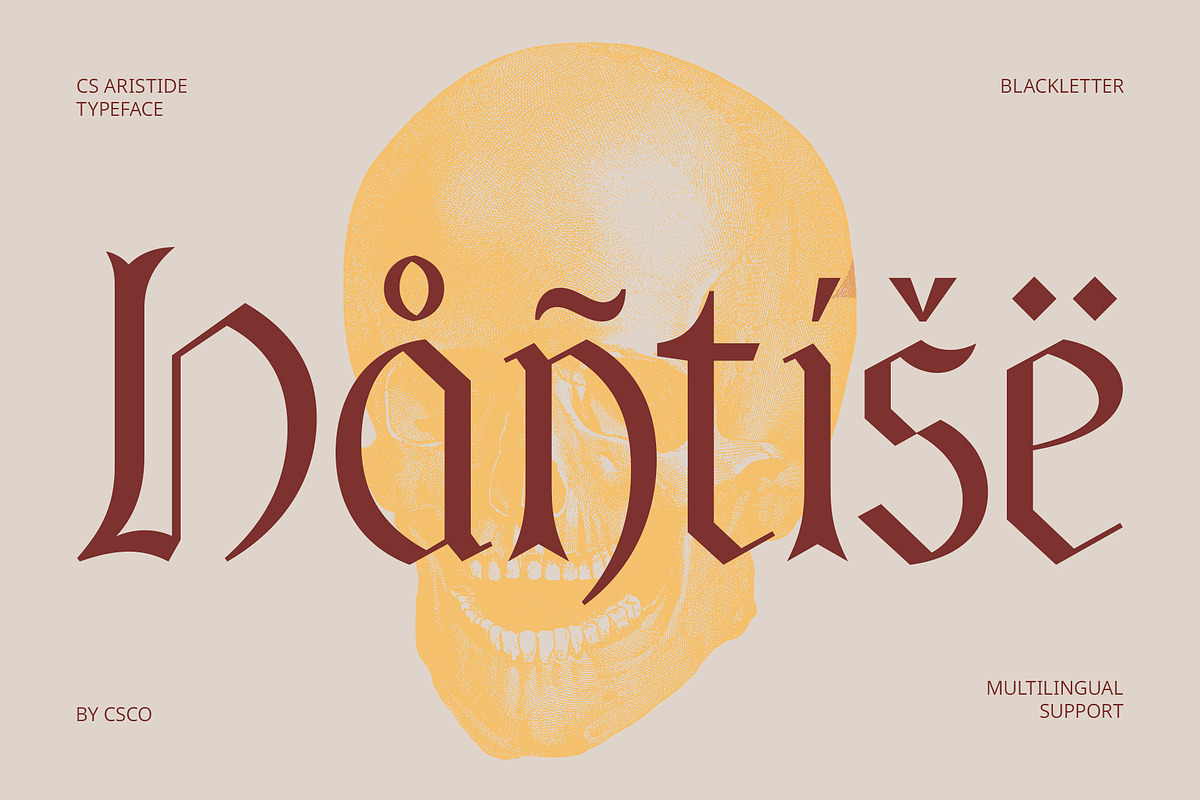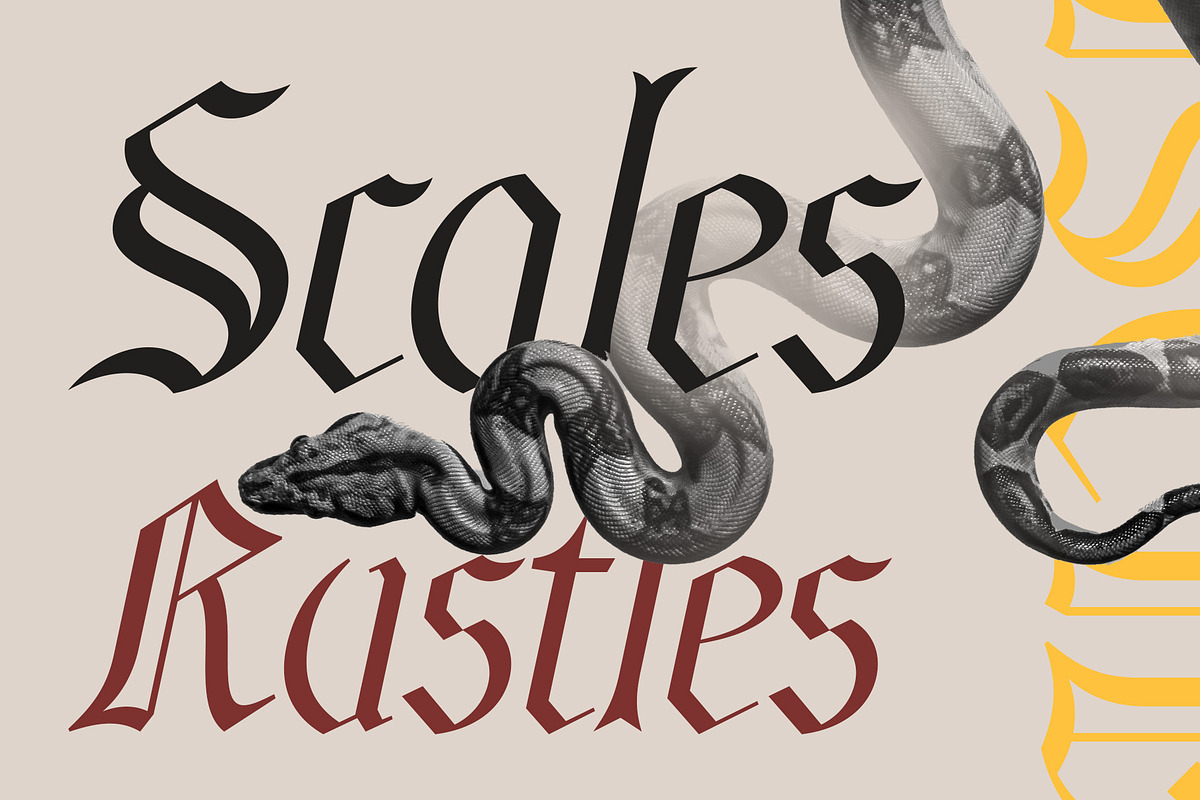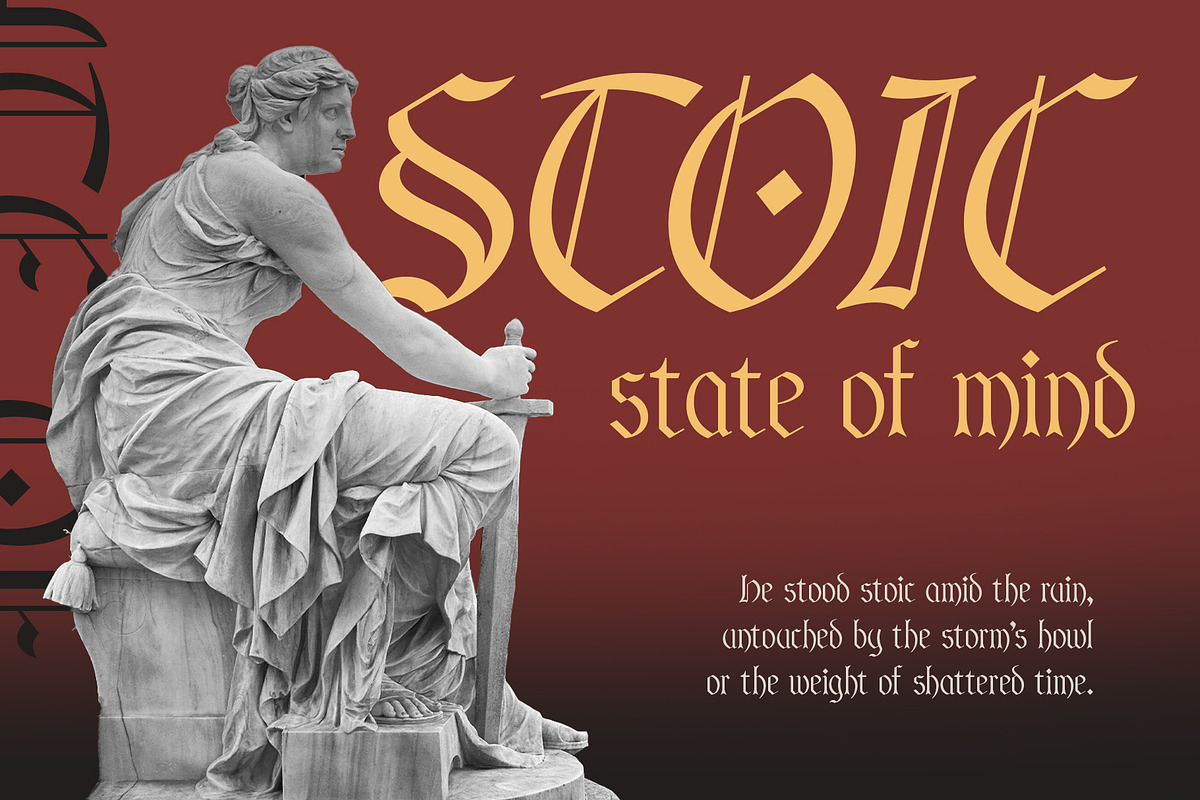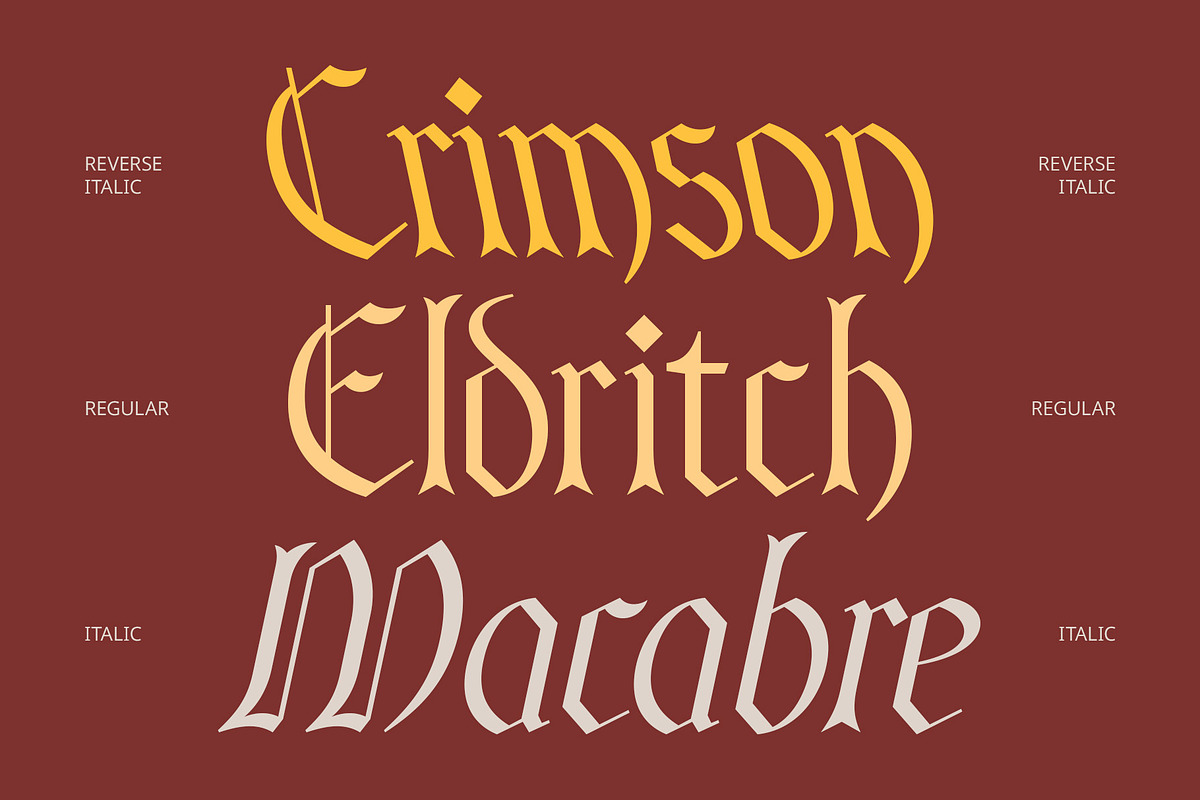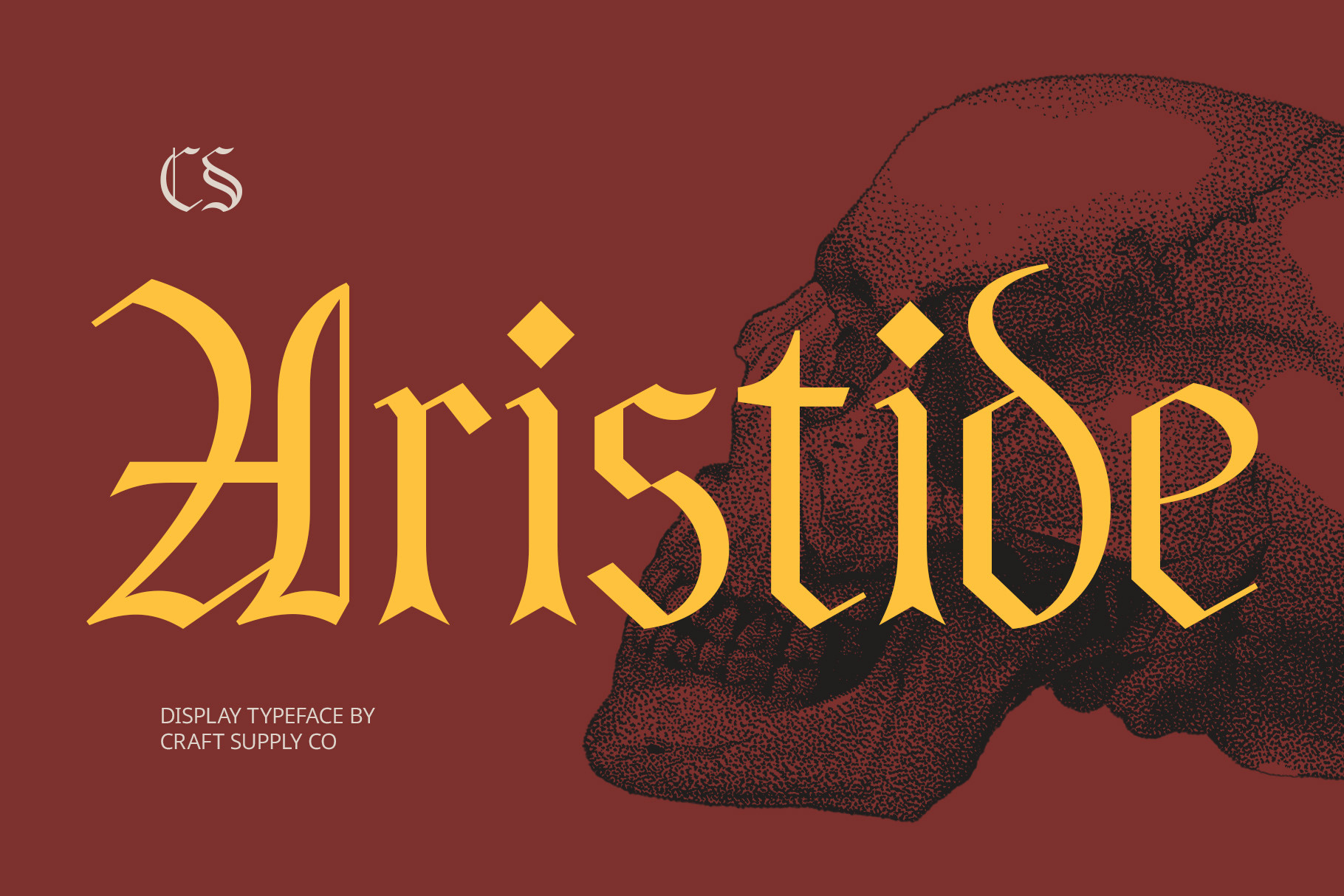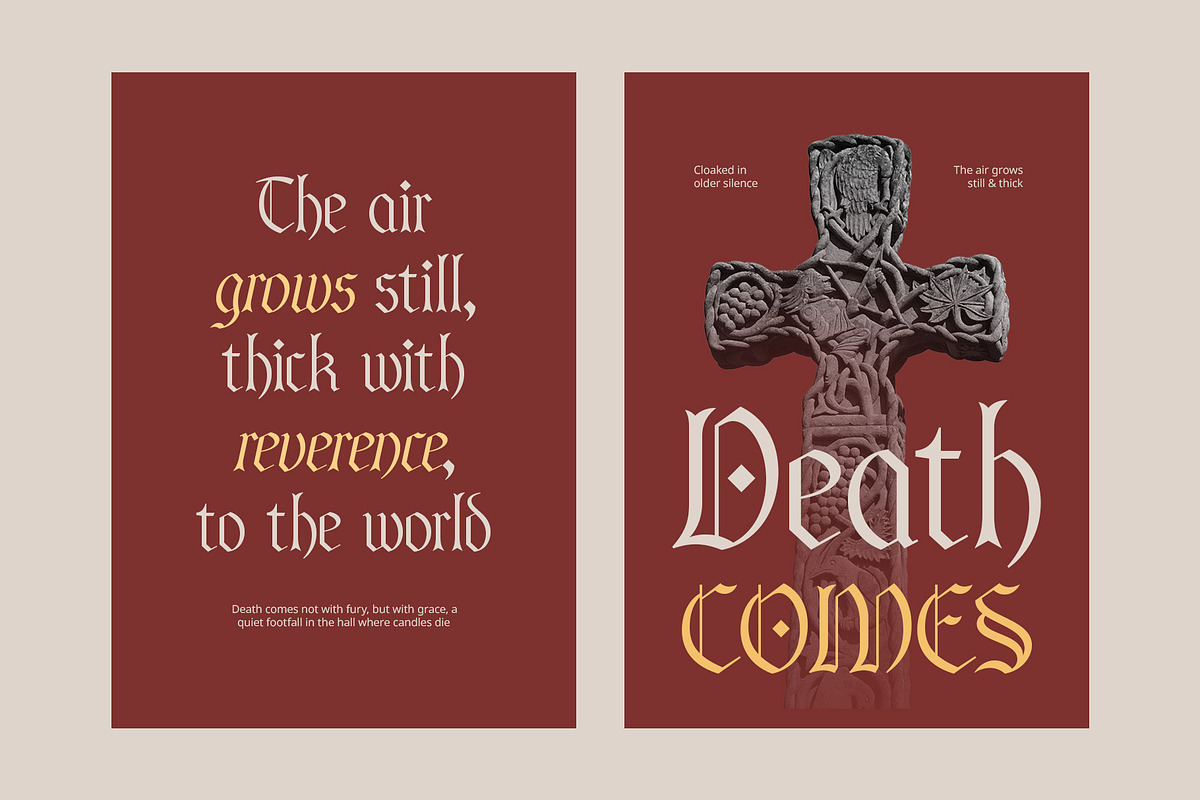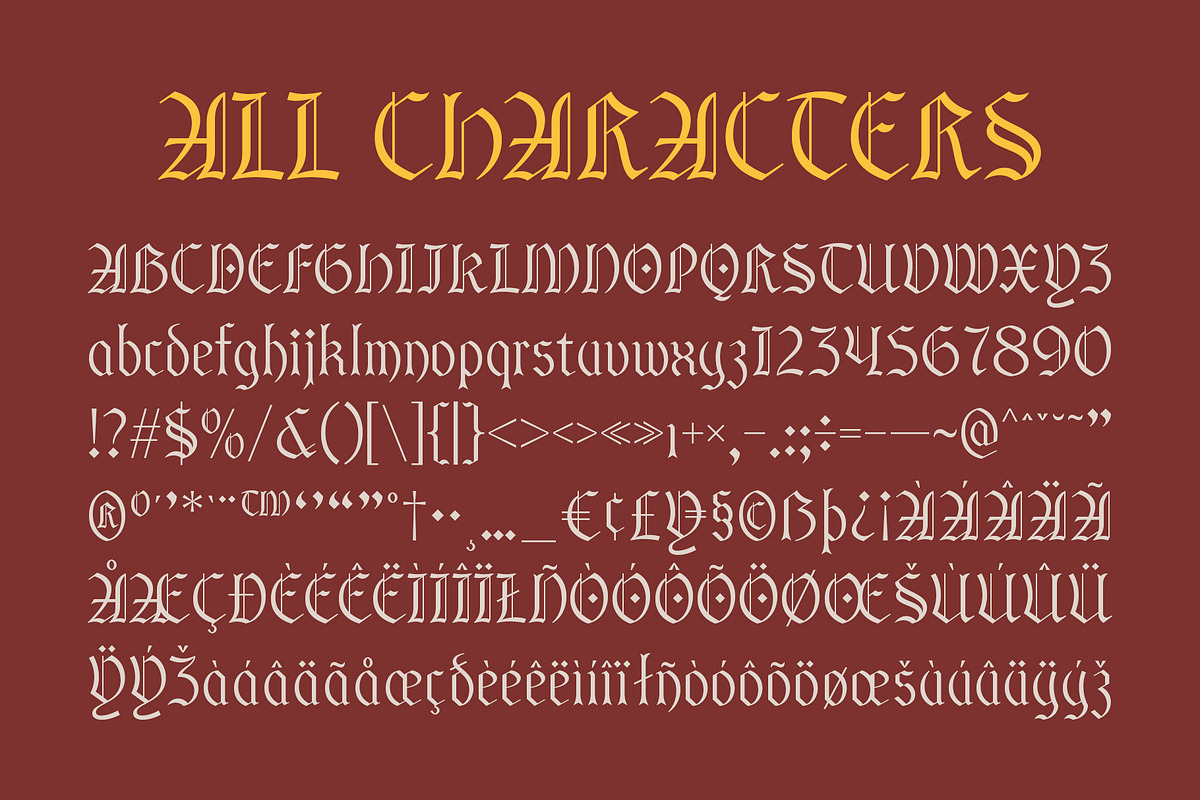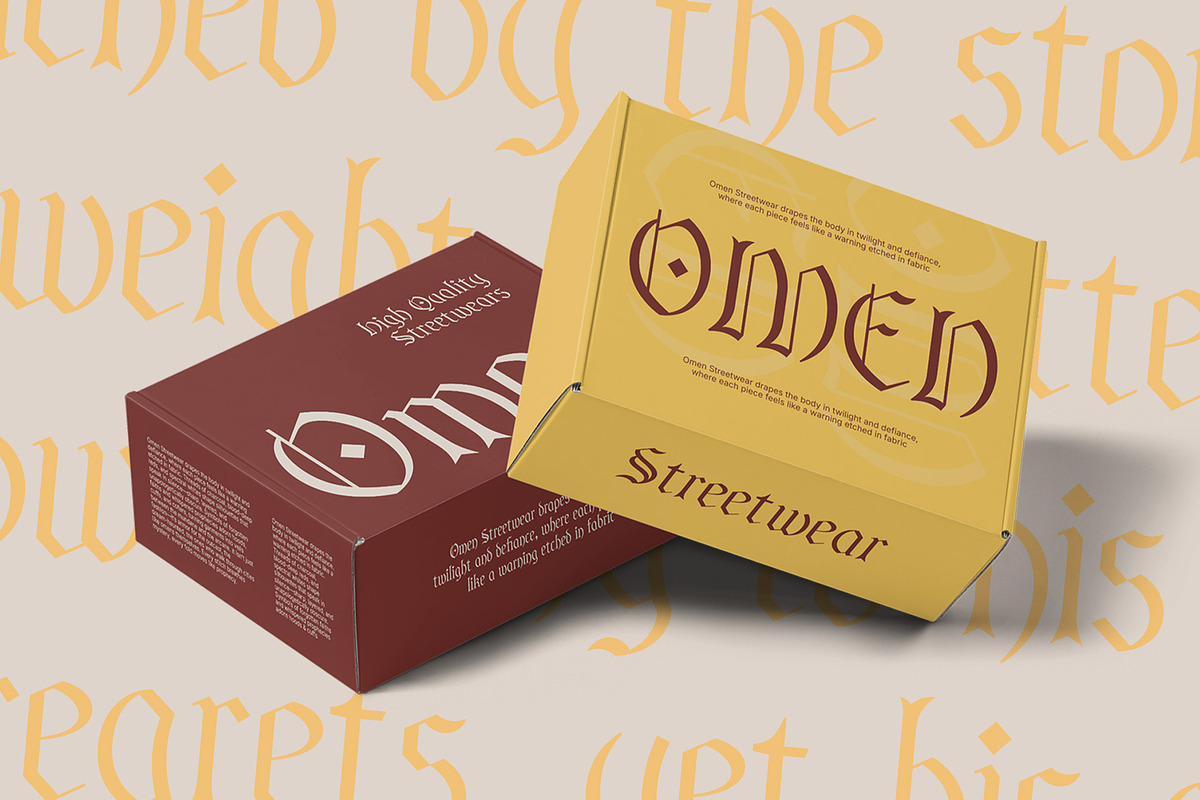
CS Aristide – Blackletter Font
CS Aristide – Blackletter Font with Modern Gothic Flair
Modern Blackletter Display Font CS Aristide is a bold blackletter display font that fuses the fierce spirit of Gothic calligraphy with contemporary minimalism. It reimagines the sharp, dramatic essence of traditional blackletter through balanced curves, minimalist proportions, and refined spacing—resulting in a typeface that is bold, artistic, and unmistakably modern.
Strong Structure with Modern Readability While preserving the pointed strength and ornamental drama of historic blackletter, CS Aristide takes a cleaner, more structured approach. Its smoothed outlines and open forms enhance legibility—making it suitable for modern layouts without compromising its expressive impact. It’s perfect for bold headlines, editorial accents, and branding that demands character.
Classic Drama, Contemporary Elegance The visual power of CS Aristide lies in its seamless blend of past and present. Inspired by Gothic manuscripts and signage, yet refined for today’s design standards, it delivers a polished yet intense presence—ideal for designers who want expressive typography with a refined edge.
Perfect for Bold and Experimental Design Whether you’re designing for music, fashion, posters, or cutting-edge branding, CS Aristide brings gothic flair and visual distinction. Its dramatic structure, combined with a modern design sensibility, makes it an excellent choice for creative projects that need boldness, sophistication, and style.
- CS Aristide Regular
- CS Aristide Italic
- CS Aristide Reverse Italic